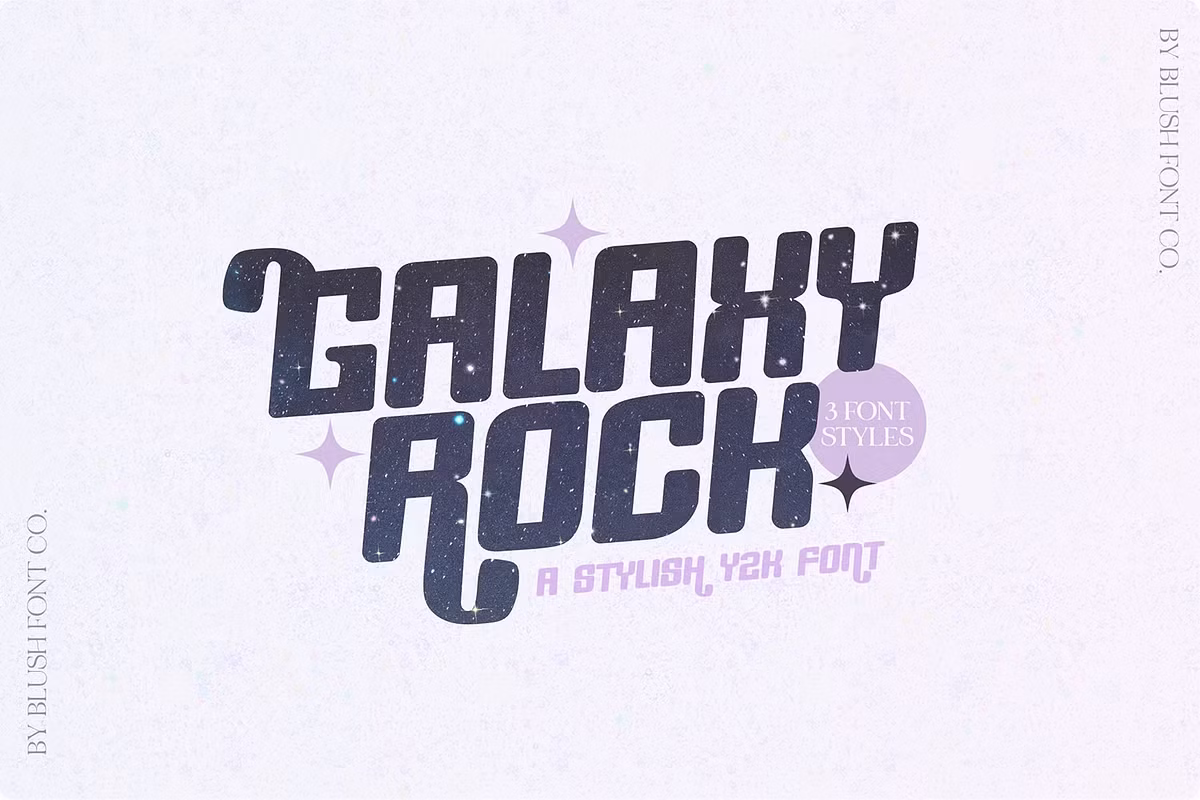
GALAXY ROCK Millenium Y2K Retro Font Free Download is a bold and futuristic typeface that captures the edgy, high-energy vibe of the early 2000s. Please note, you are required to purchase this font for commercial use. It is available for free download for testing and personal projects only.
With its techno-inspired curves, sharp lines, and nostalgic aesthetic, GALAXY ROCK is perfect for music posters, streetwear branding, digital artwork, and anything that needs a touch of retro-futuristic flair. It channels the Y2K era with attitude and style, making your designs pop with personality.
By choosing GALAXY ROCK Millenium Y2K Retro Font Free Download, you’re getting a typeface that’s both nostalgic and forward-thinking. It installs easily and works smoothly across all major design platforms. Whether you're designing for fashion, gaming, or digital media, GALAXY ROCK delivers that iconic millennial-era edge.